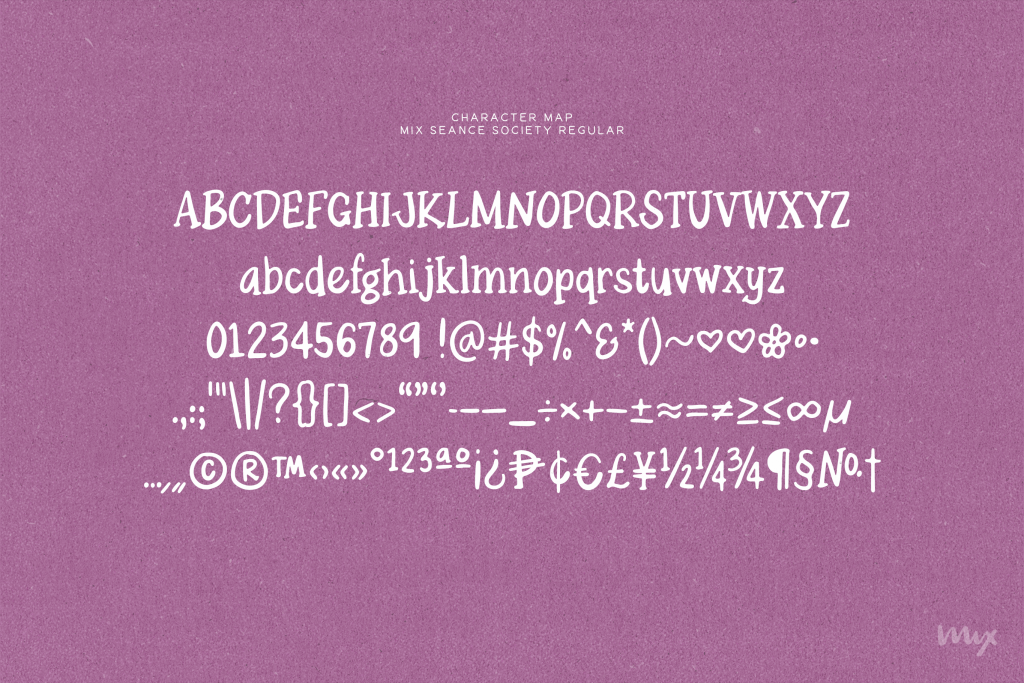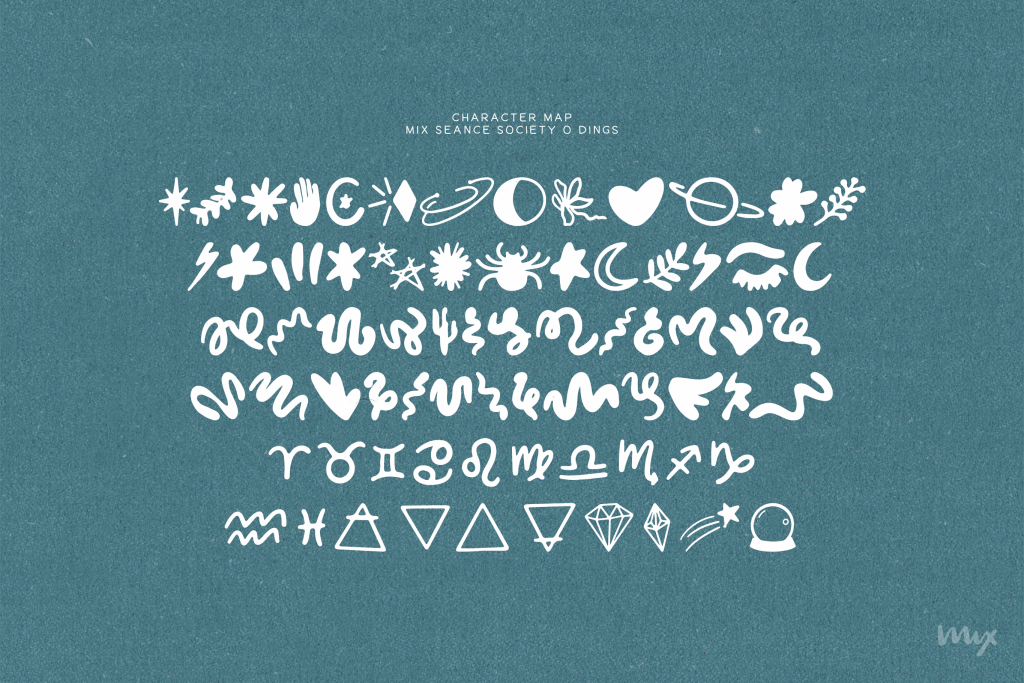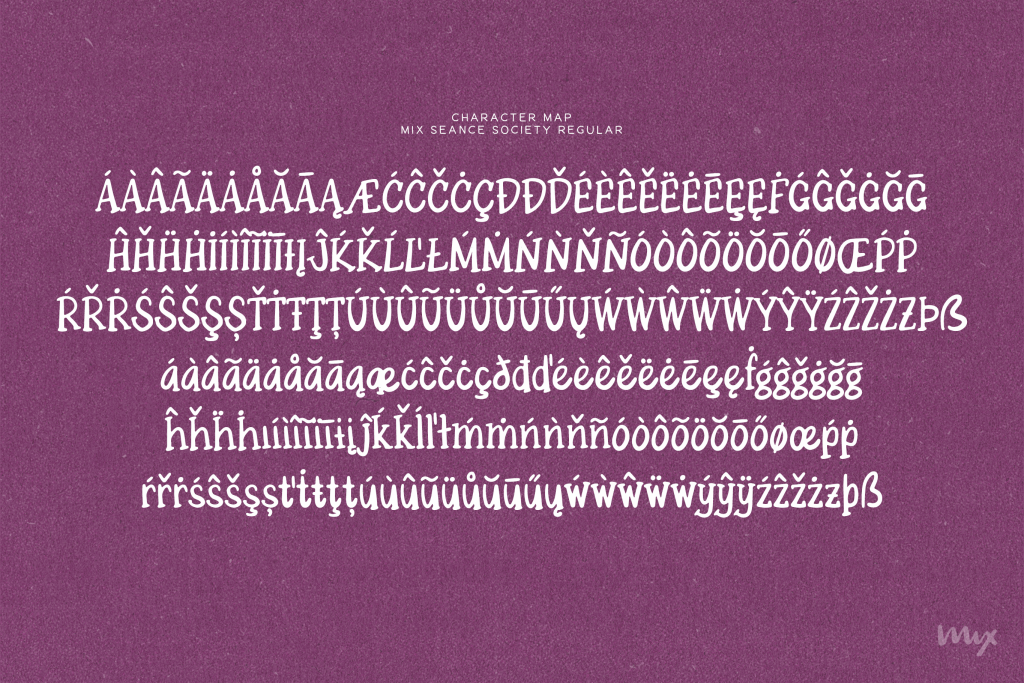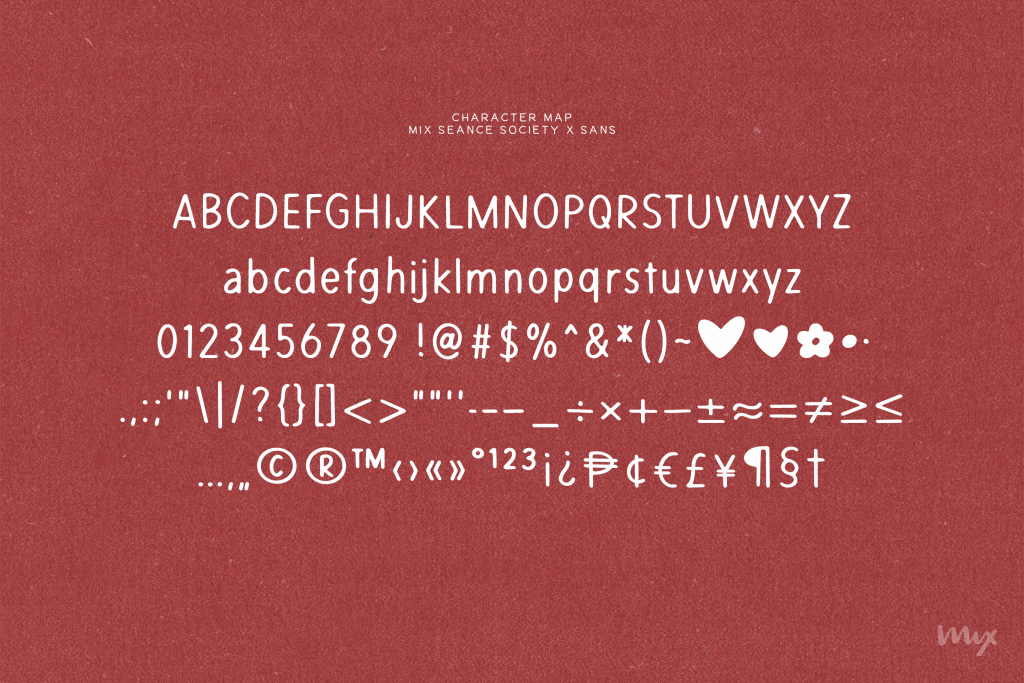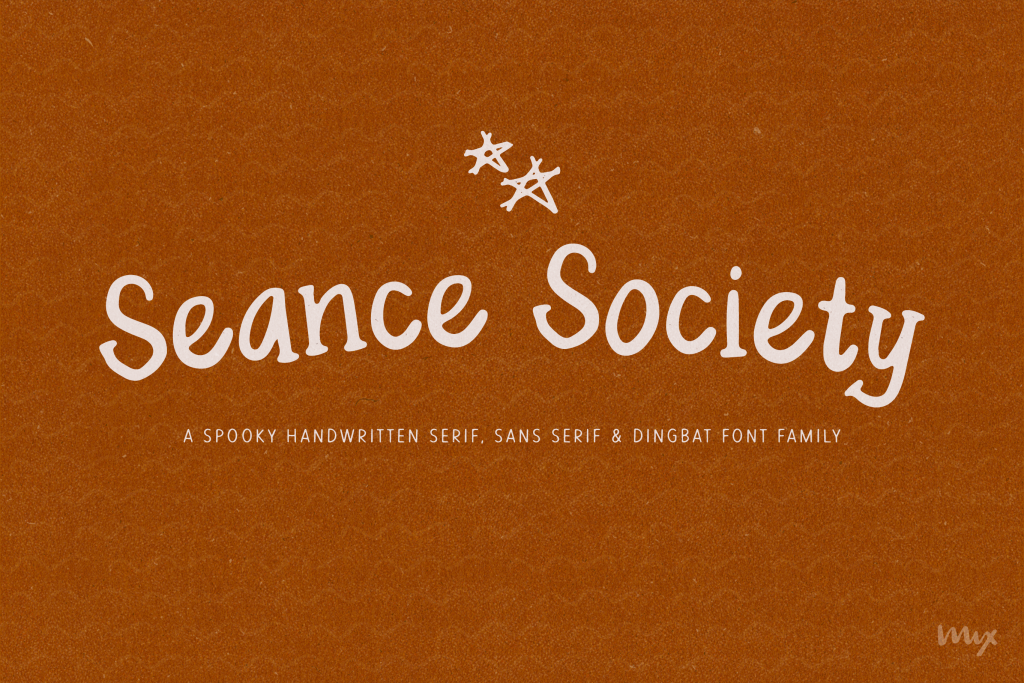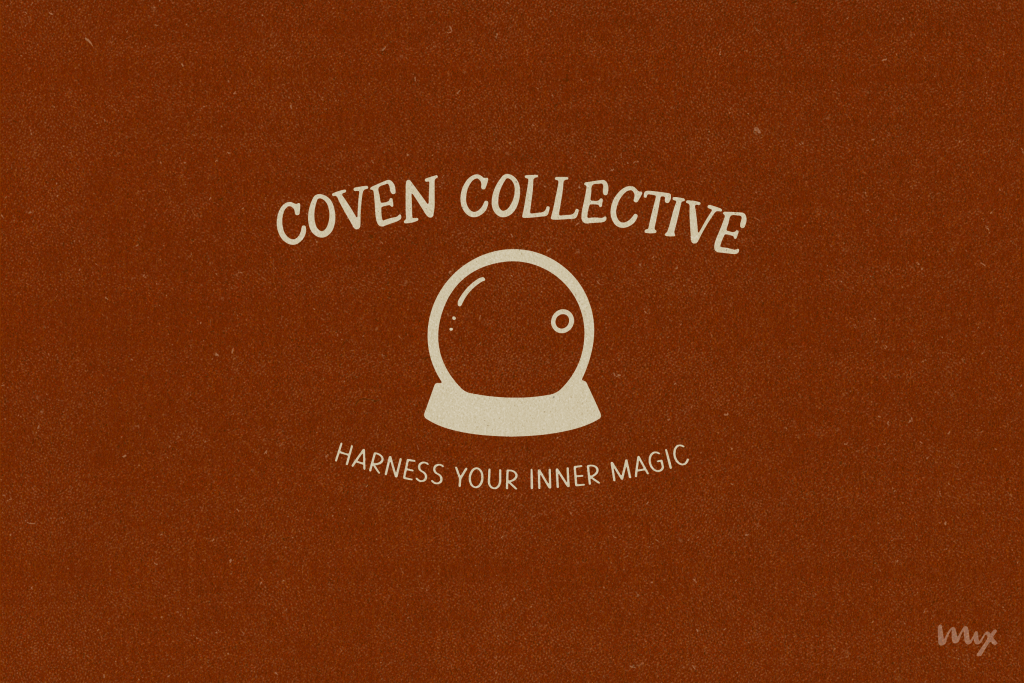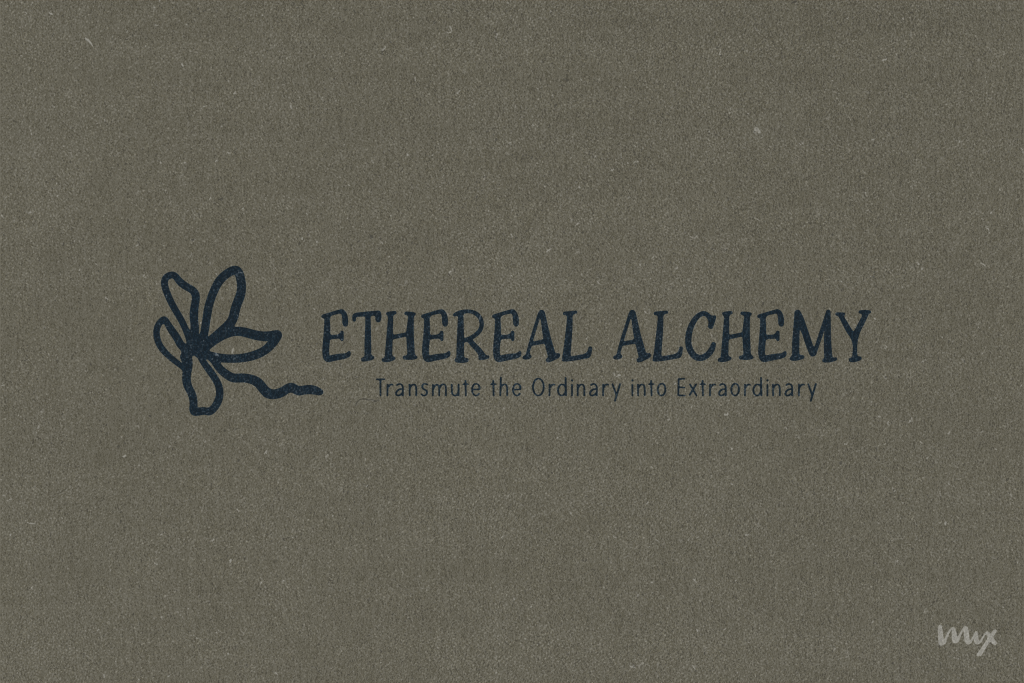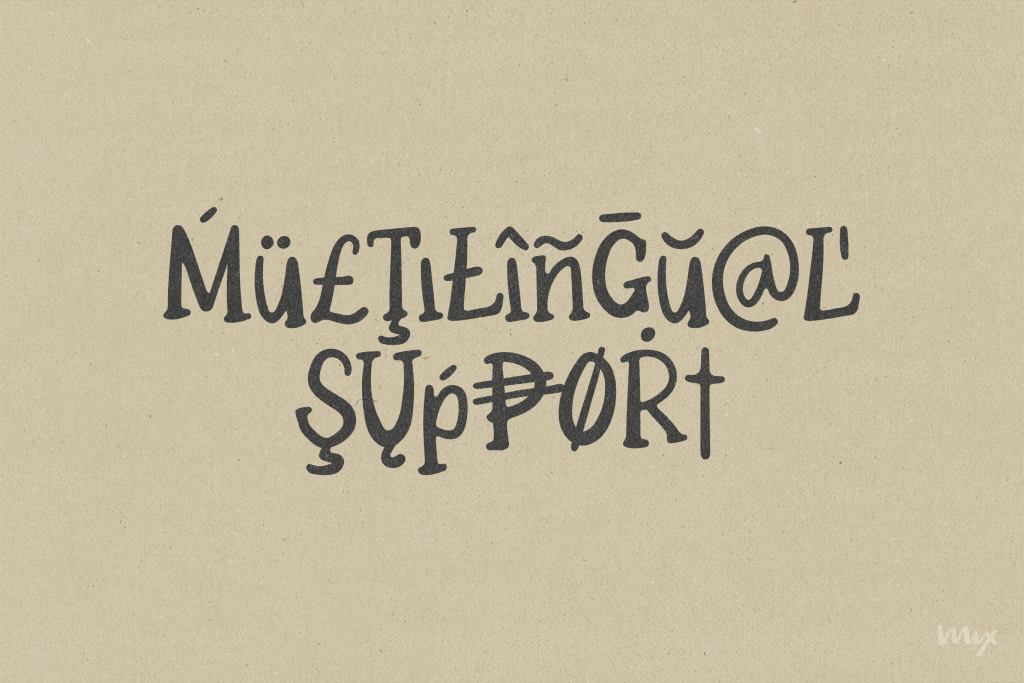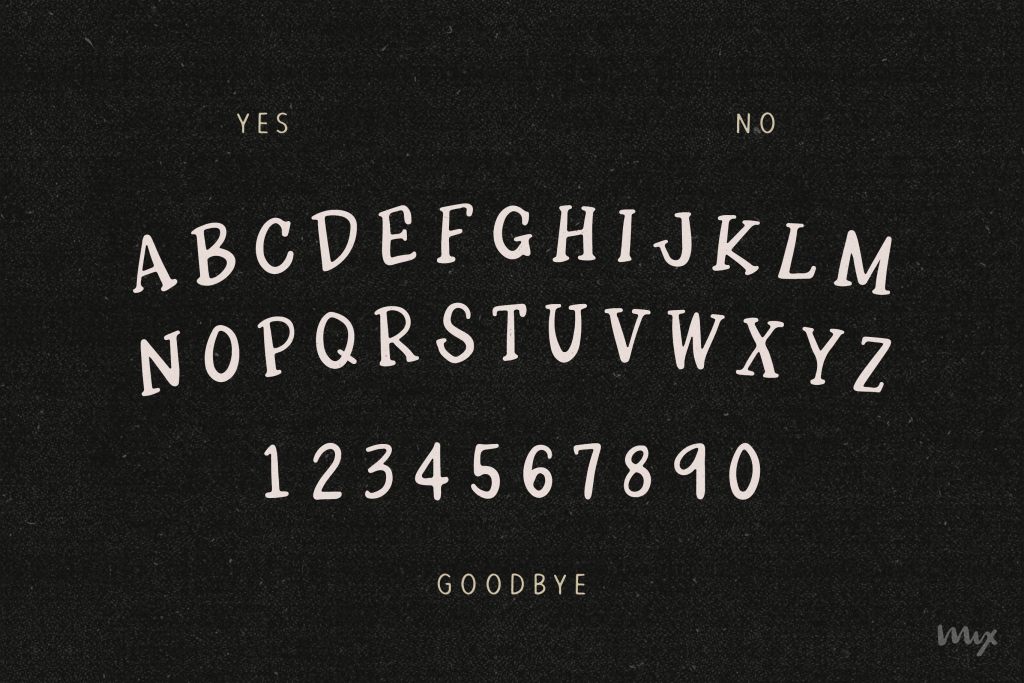
Mix Seance Society
Witchy trio, dingbats included. For séances with good branding.
SEANCE SOCIETY
Summon the perfect vibe for your next project with SEANCE SOCIETY, a versatile font trio designed for the spooky, the mystical, and the magically inspired. This font family blends eerie elegance with cosmic charm, including—
Font Styles:
– SEANCE SOCIETY: A hauntingly elegant serif, ideal for adding a spellbinding touch.
– SEANCE SOCIETY X (SANS): A clean, understated sans that pairs effortlessly with the serif for seamless versatility.
– SEANCE SOCIETY O (DINGS): A curated collection of 72 hand-drawn mystical symbols—crescent moons, cauldrons, crystals, stars, and more—adding an extra dose of enchantment to your designs.
Features:
Designed for raw, personal projects, Seance Society thrives in Halloween, witchy, and cosmic themes. The dingbat set amplifies your creative potential with symbols perfect for adding mystic flair.
Uses:
– Whether crafting eerie merch, spellbinding branding, or Halloween invitations, Seance Society is your go-to for posters, t-shirts, logos, packaging, social media graphics, book covers, spell books, greeting cards, and more.
Styles:
– 3 Fonts: Serif, Sans, and Dingbats
– Multilingual support with accented glyphs
SEANCE SOCIETY helps you summon the perfect touch of mystery and magic for all your creative projects. Embrace your inner magic, one letter at a time.